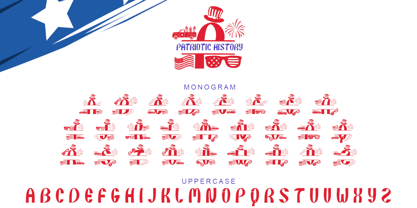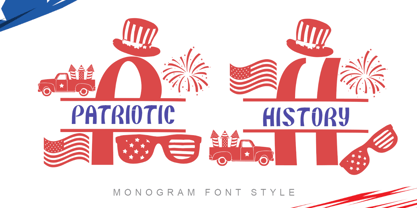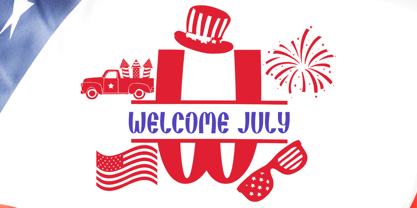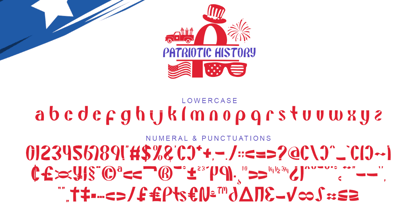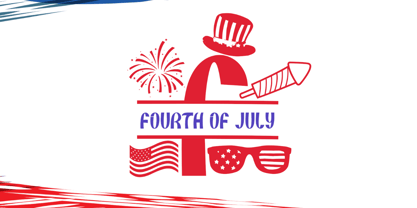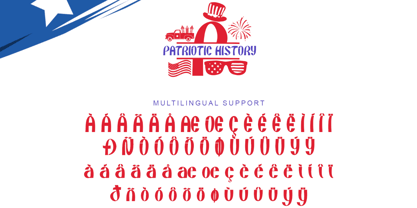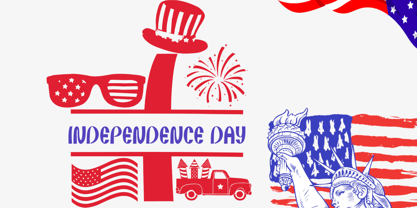
Patriotic History Monogram
by Yoga Letter
The Patriotic History Monogram Font Family was designed by Isroni Yoga Prasetya and published by Yoga Letter. Patriotic History Monogram contains 2 styles and family package options. More about this family
"Patriotic History" is an elegant and unique monogram font. This font is equipped with uppercase, lowercase, monogram, numeral, punctuations and multilingual support. It is very suitable for 4th of July, patriotic, christmas, summer, banner, branding, logo, sticker, print and others.
Designers: Isroni Yoga Prasetya
Foundry: Yoga Letter